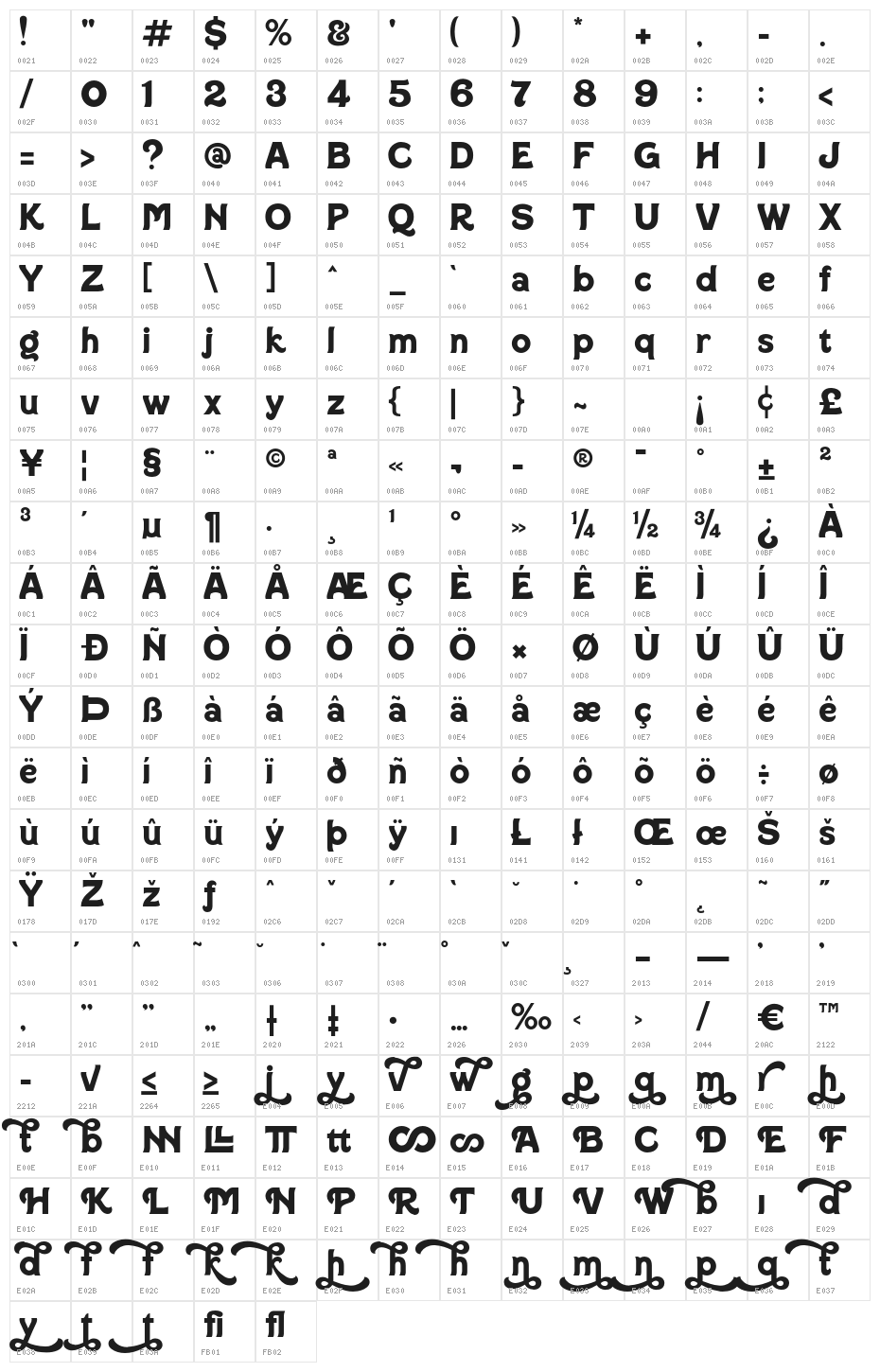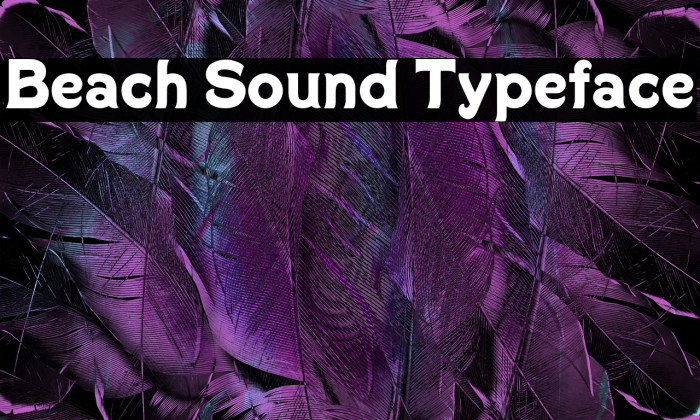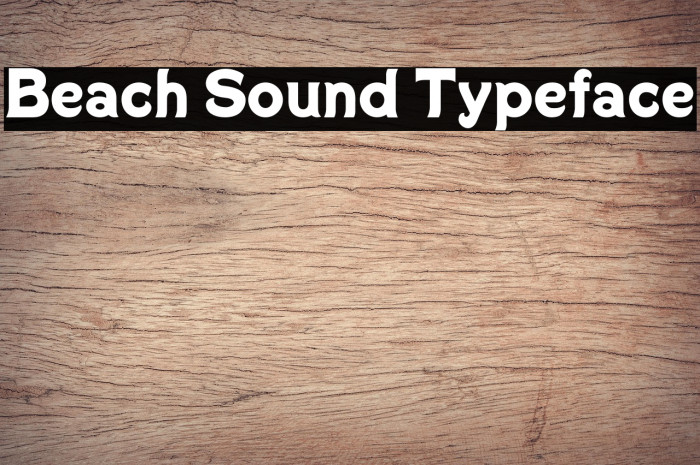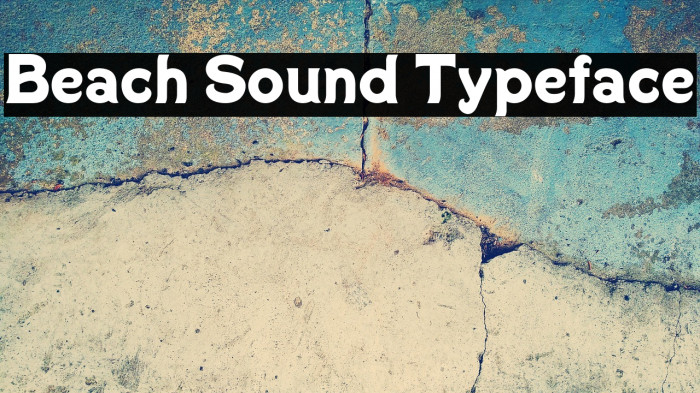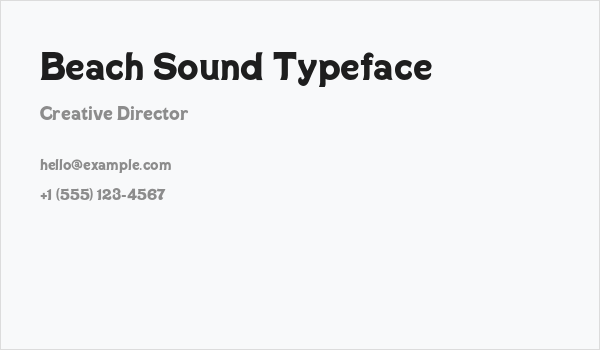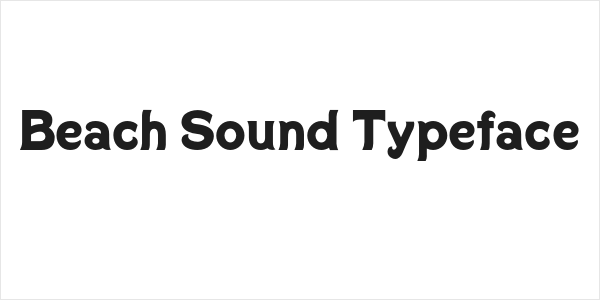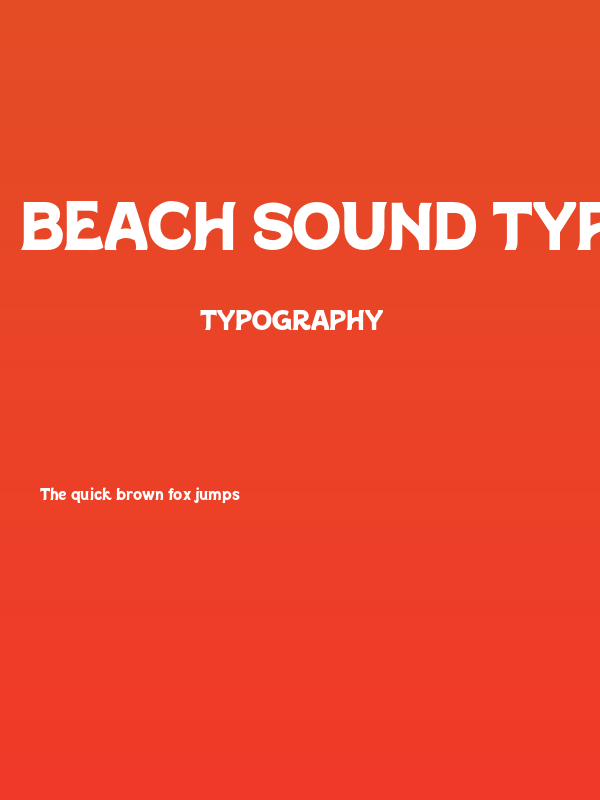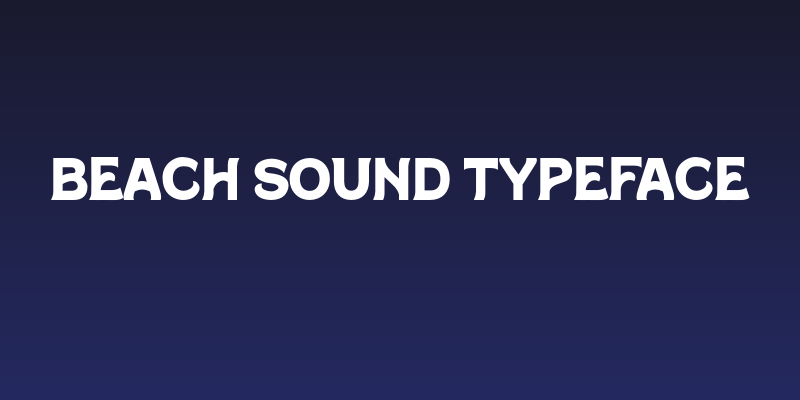
Beach Sound Typeface Font
Beach Sound Typeface Description
This typeface features a bold and playful design, characterized by its rounded and slightly whimsical letterforms. The uppercase letters exhibit a strong presence with consistent stroke widths, while the lowercase letters maintain a friendly and approachable appearance. The numerals are well-proportioned, matching the overall style of the alphabet. Special characters are included, enhancing the font's versatility. The design is reminiscent of a casual, beach-inspired aesthetic, making it ideal for projects that require a relaxed yet impactful visual appeal.
| Proposed Projects | Perfect for beach-themed branding, playful posters, children's books, and casual event invitations. |